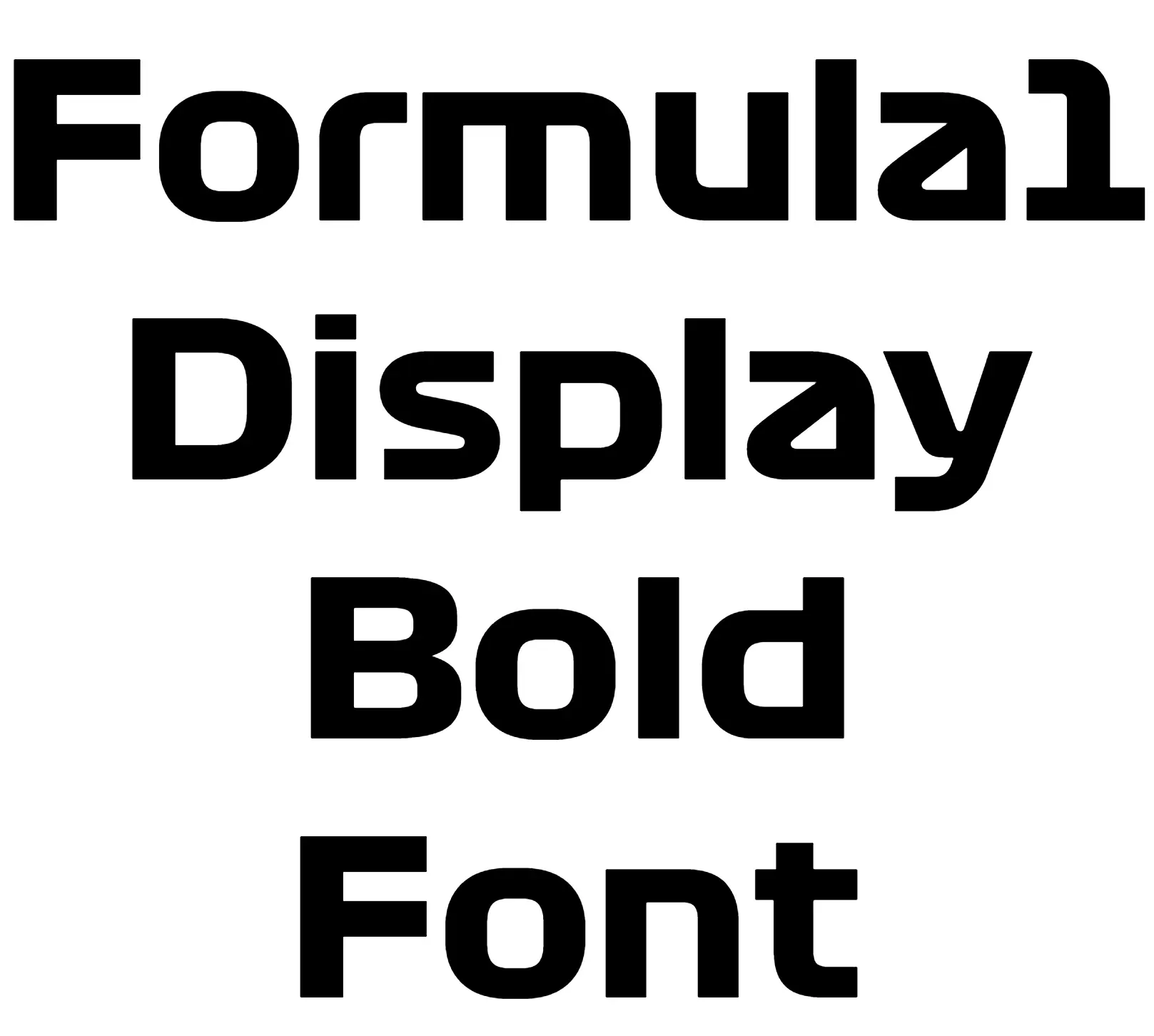
Formula1 Display Bold Font
Formula1 Display Bold is a sans serif font made by Marc Rouault. It has a clean, no-nonsense look that fits modern brands and websites. The free download includes three styles, and you can try every one of them with your own text in the preview above.
What You Can Type With Formula1 Display Bold
You get every letter from A to Z in both cases and all the numbers from 0 to 9, which means Formula1 Display Bold can handle full sentences, dates and prices. Everyday marks like &, !, ? and @ are there too. Thanks to its accented letters, it also works for Spanish, French, German, Portuguese and Italian, not just English.
Where Formula1 Display Bold Works Best
Formula1 Display Bold is a natural fit for websites, app screens and clean logos. It works for headings and body text alike. If the download has several weights, use a heavier one for titles and a lighter one for paragraphs. Because the family has more than one style, you can mix them in a single design for headings, subheadings and highlights.
Does Formula1 Display Bold support accented letters?
Yes. Formula1 Display Bold includes the accented letters needed for Spanish, French, German, Portuguese and Italian, so it works for more than just English.